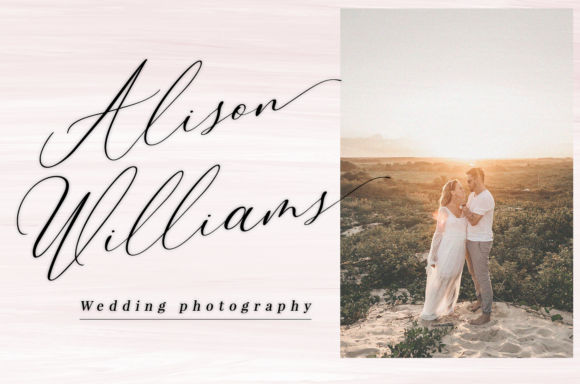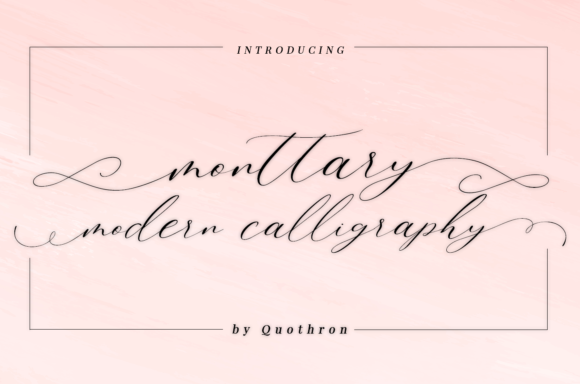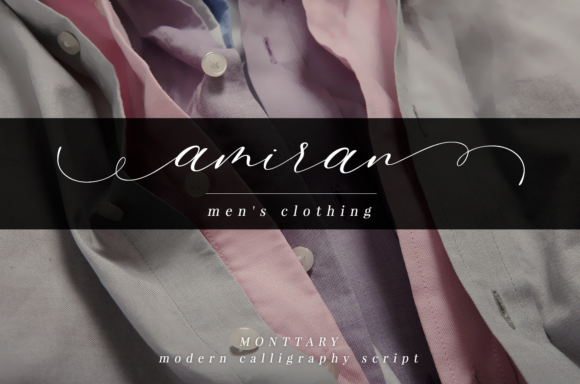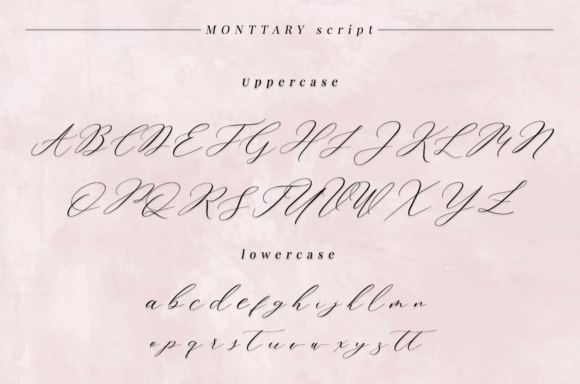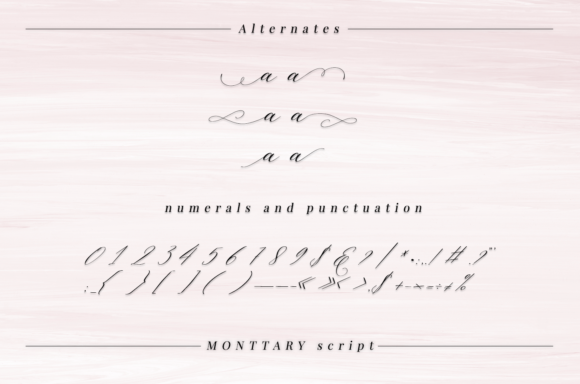
Introduction to Monttary Font
Have you ever found yourself staring at a blank page, struggling to bring your creative vision to life? For designers, this moment is all too familiar. The blank slate can be daunting, but it’s also an opportunity to infuse your project with personality and style. In this moment, the right design resource can make all the difference.
That’s where Monttary Font comes in – a high-quality script that’s perfect for adding an extra touch of elegance to your next creative project. With its smooth curves and beautiful swashes, this free download is a valuable addition to any designer’s toolkit. Whether you’re working on a branding project, a wedding invitation, or a digital product, Monttary Font’s versatility makes it a must-have resource.
One of the standout features of Monttary Font is its transparent background, making it easy to layer and combine with other design elements. This level of flexibility is a game-changer for designers, allowing you to experiment and push the boundaries of your creative vision. In this article, we’ll take a closer look at what makes Monttary Font so special and explore some ideas for incorporating it into your next project.
Key Features of Monttary Font
- High-quality, modern design perfect for creative projects
- Transparent background ideal for use on images or videos with complex backgrounds
- Perfect for designers and artists working on high-end design projects
- Unique, elegant design with a touch of sophistication, making it a valuable design resource
Honest Review: Monttary Font
As a designer, I’m always on the lookout for high-quality design resources that can elevate my creative projects. Recently, I stumbled upon the Monttary Font, and I’m excited to share my honest review with you.
What works well: ✨ The Monttary Font has a unique and modern design aesthetic that makes it perfect for a wide range of creative projects. It’s available for free download, which is a definite plus. The font also features a transparent background, making it easy to use on any design background.
Here are some key features that I love about the Monttary Font:
- Unique and modern design aesthetic
However, I did notice a few limitations: ⚠️ The Monttary Font may not be suitable for all types of projects, as it’s more geared towards modern and minimalist designs. Additionally, the font may not be available in as many languages as some other fonts.
Overall, I’m impressed with the Monttary Font and would definitely recommend it to designers looking for a high-quality and unique font for their creative projects.
How to Use Monttary Font
The Monttary Font is a high-quality design resource that can elevate your creative project to the next level. With its unique style and transparent background, it’s perfect for designers who want to add a touch of sophistication to their work.
Tips for Getting the Most Out of the Monttary Font
To get the most out of the Monttary Font, use it in combination with other design elements to create a cohesive look. Experiment with different font sizes and colors to add visual interest to your design.
The Monttary Font is perfect for designers who want to create a modern and sophisticated look. It’s great for use in logos, business cards, and other design projects where a high-quality font is needed.